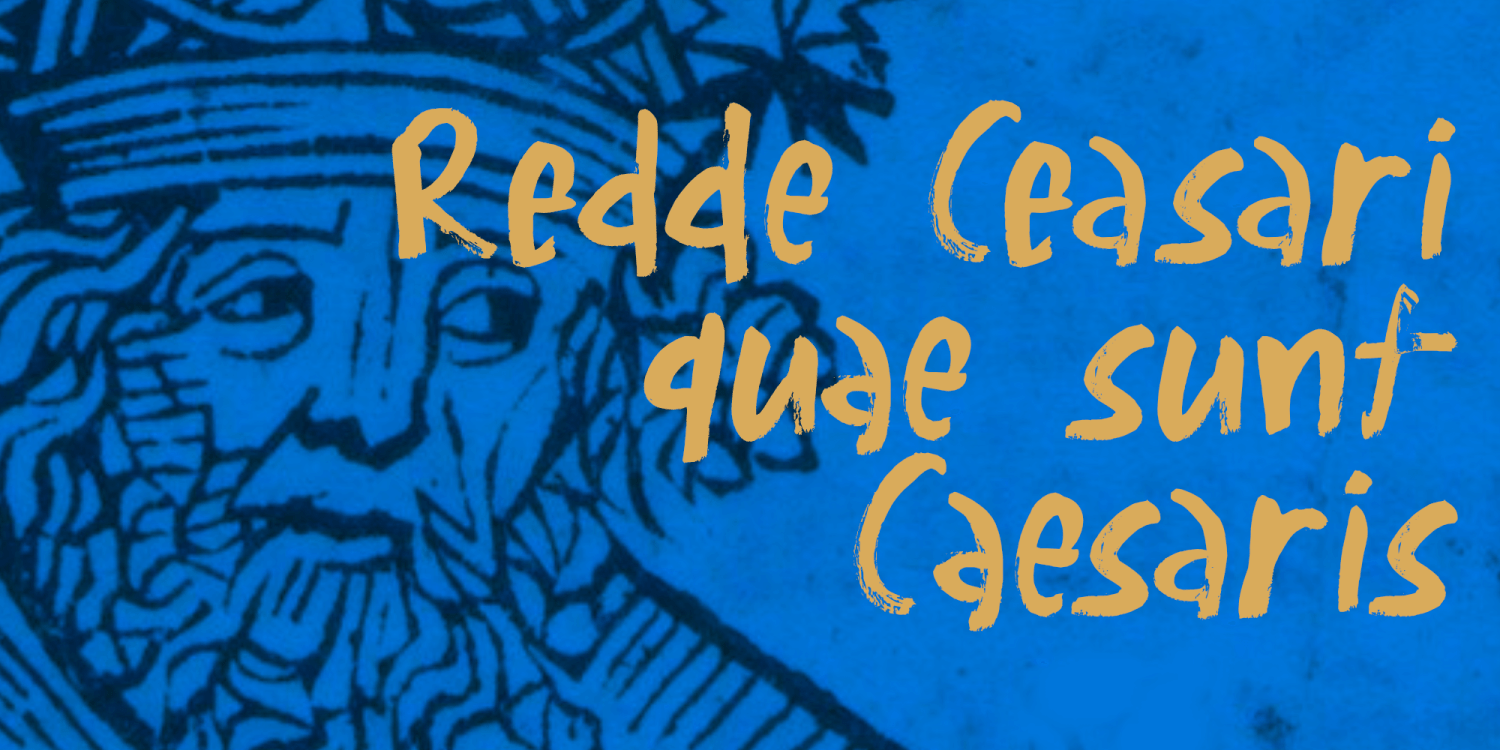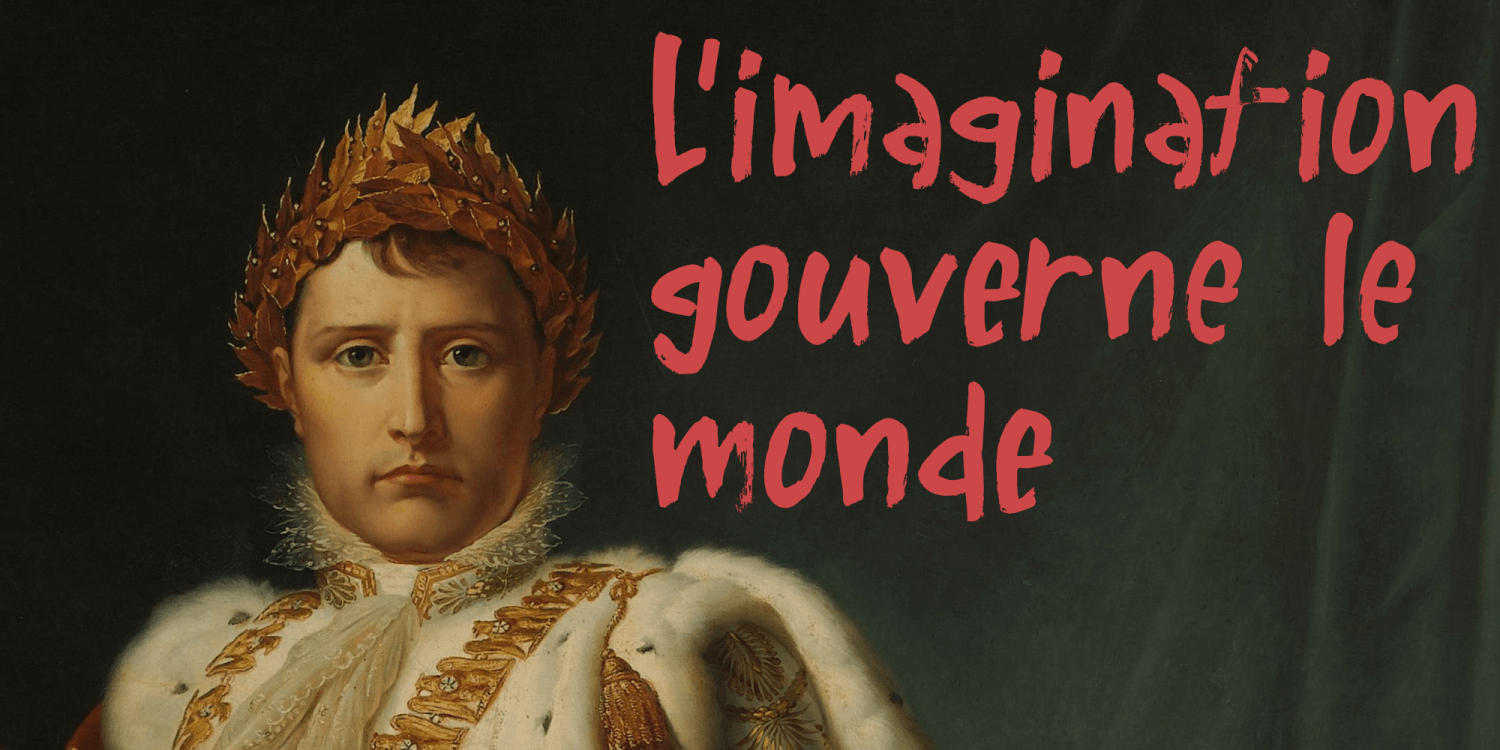
About Supreme Leader
I was watching a science fiction movie with my son Boris the other day. It had a character in it called the ‘Supreme Leader’. I thought that title was hilarious, so I decided to name a font after it. Supreme Leader is a handmade brush font.…